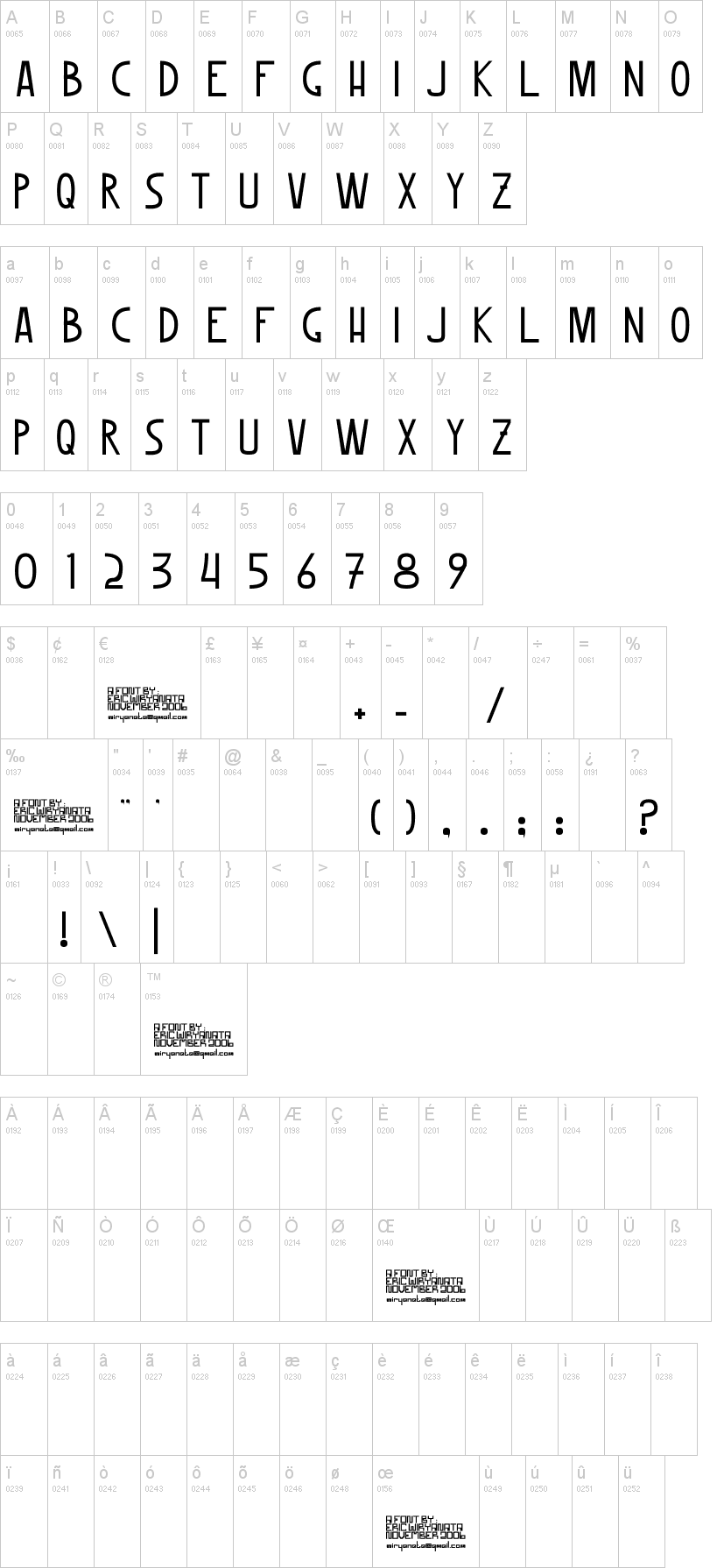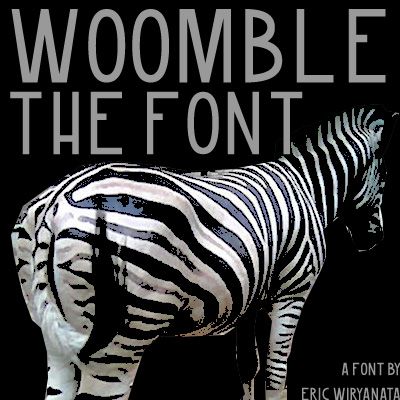
Шрифт Woomble
Woomble was taken from a band frontman. if you share the same musical taste you'll know who he is.
but the design was coming nowhere from him, i just thought it would fit.
this is not the complete version. so that is why you'll find many empty glyphs. and i haven't put the small caps either.
but the design was coming nowhere from him, i just thought it would fit.
this is not the complete version. so that is why you'll find many empty glyphs. and i haven't put the small caps either.